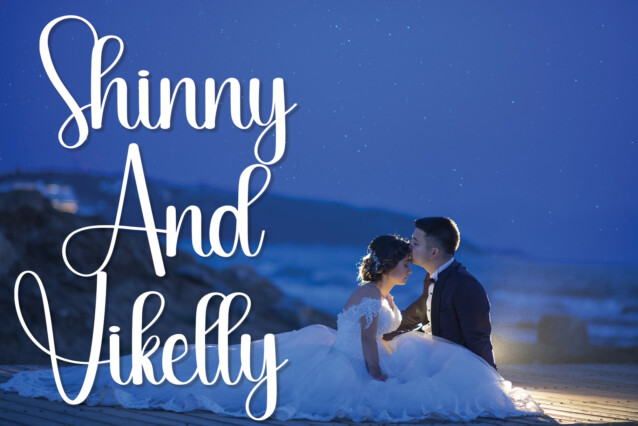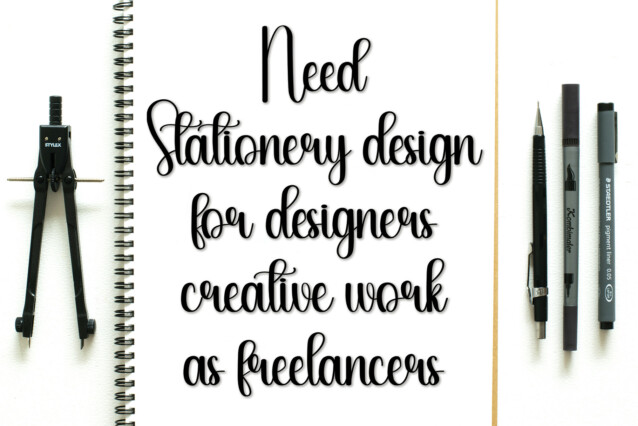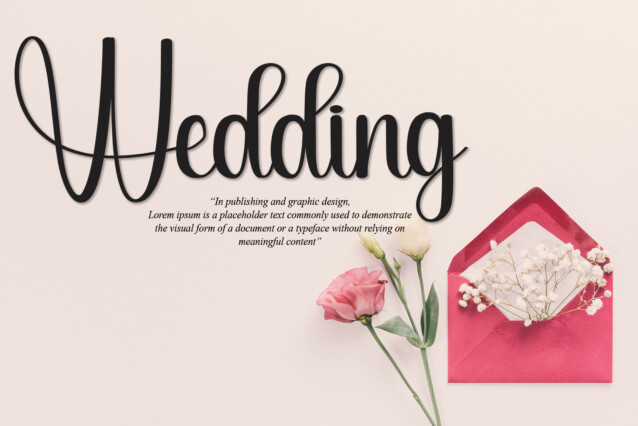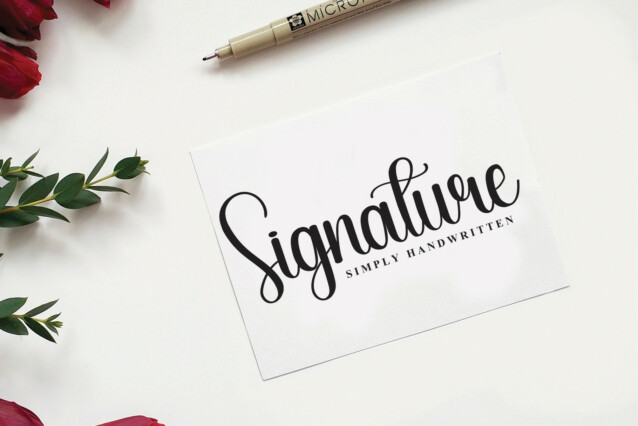
Hey Rainbow Script Font
Hey Rainbow Script Font is a beautiful handwritten typeface. This lovely font is suitable for wall displays, wedding invitations, social media post logos, advertisements, product packaging, product designs, labels, photography, watermarks, invitations, and more.